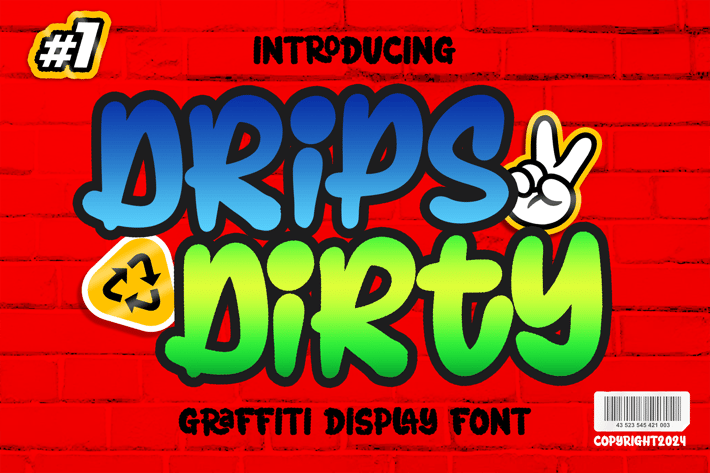
Drips Dirty Modern Marker Graffiti Brush Font
Drips Dirty Modern Marker Graffiti Brush Font a distinct, highly detailed. GRAFFITI Display Font.
It would make a great choice for exquisite retro-urban designs, business branding, logos, Apparel designs, and more.